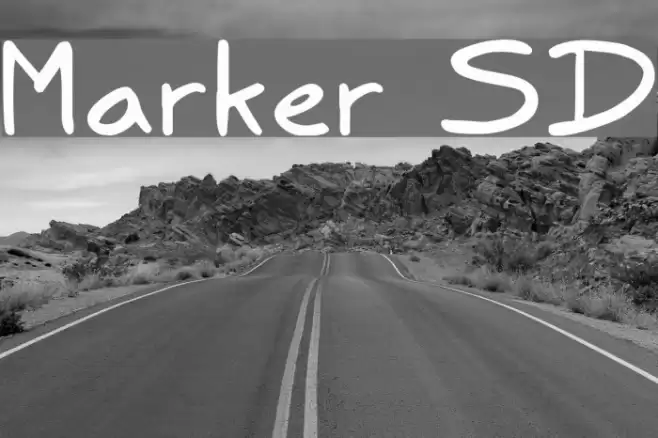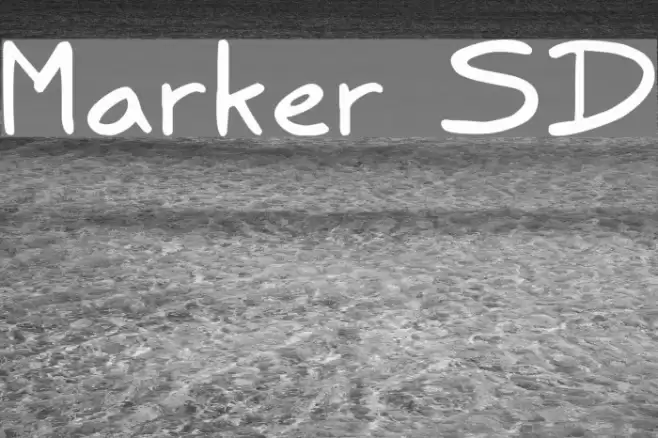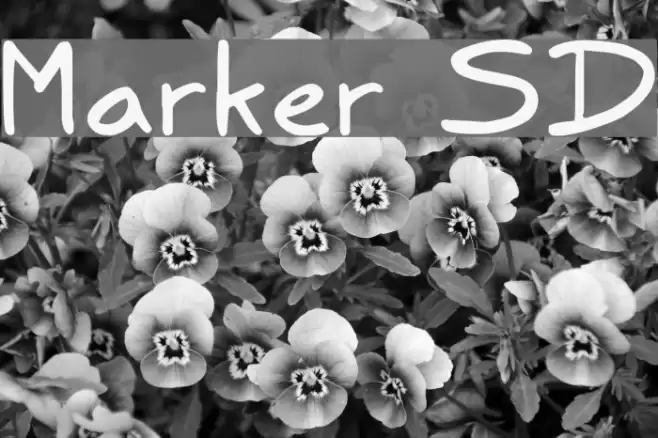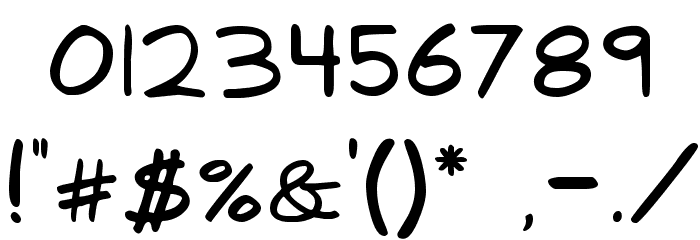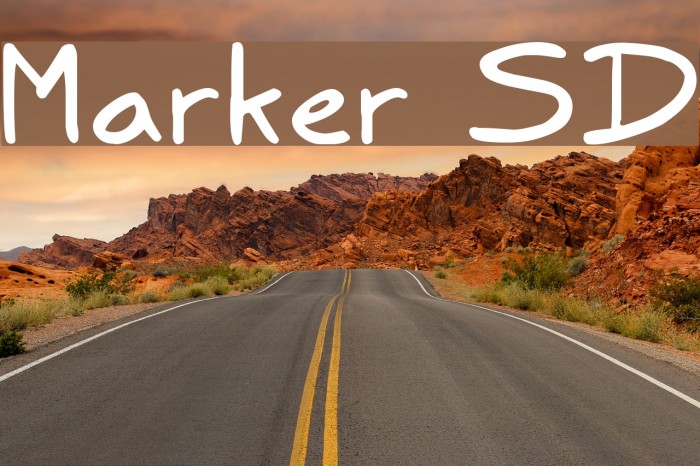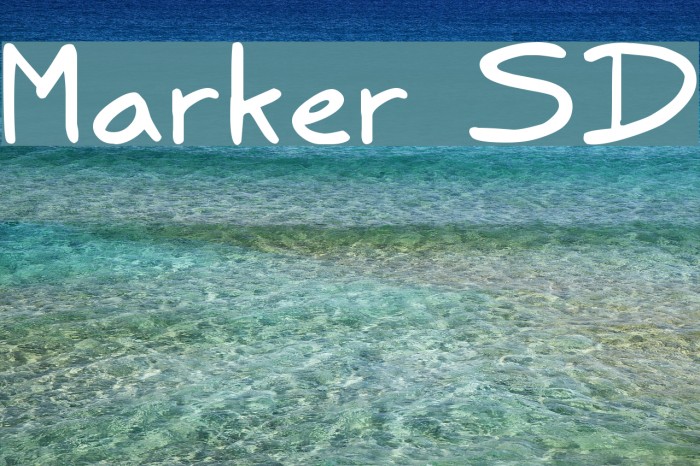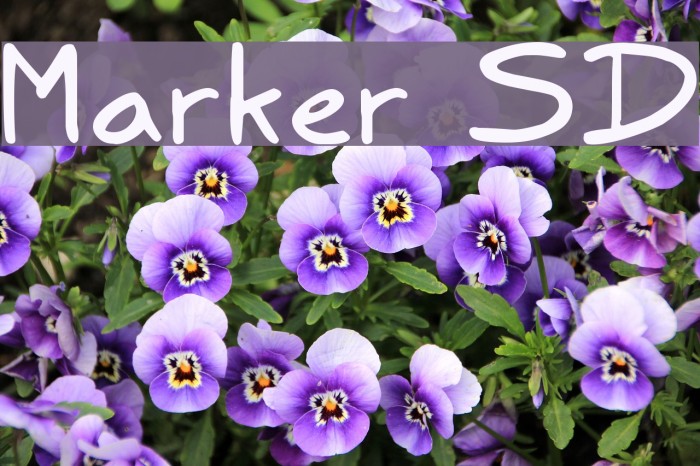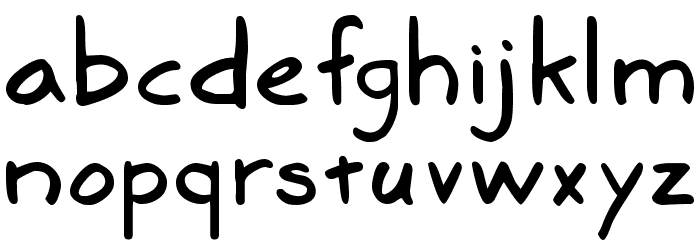
Marker SD Font
Marker SD Description
This font exudes a playful and casual handwritten style, reminiscent of a marker pen. The characters are bold and rounded, with a consistent stroke width that gives it a uniform appearance. The uppercase letters are slightly taller than the lowercase, maintaining a friendly and approachable look. Numbers and special characters follow the same style, ensuring a cohesive design throughout. The font's informal nature makes it ideal for projects that require a personal touch or a relaxed vibe.
A playful, handwritten marker-style font with bold, rounded characters from Handwritten fonts.
- Proposed Projects: Ideal for children's books, casual invitations, personal notes, and creative posters.
- Overall Style: Casual
- Use Case: Headlines, Informal text, Creative projects